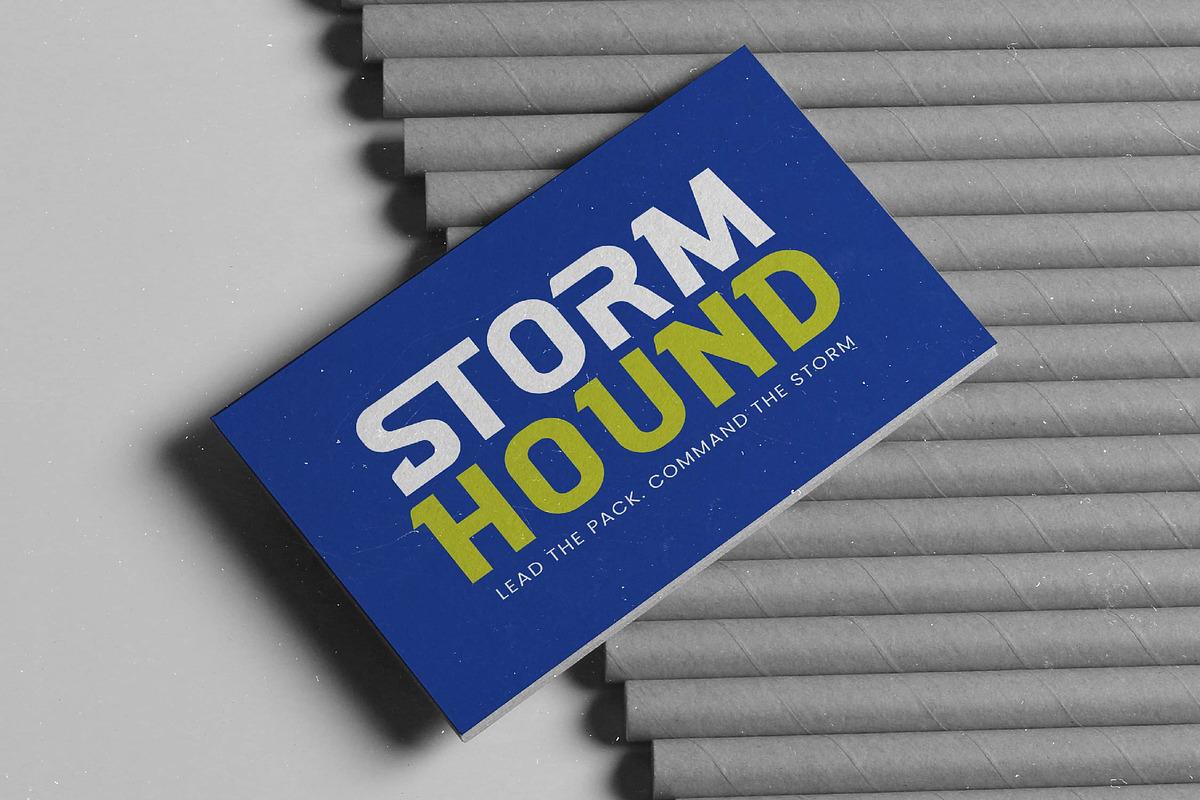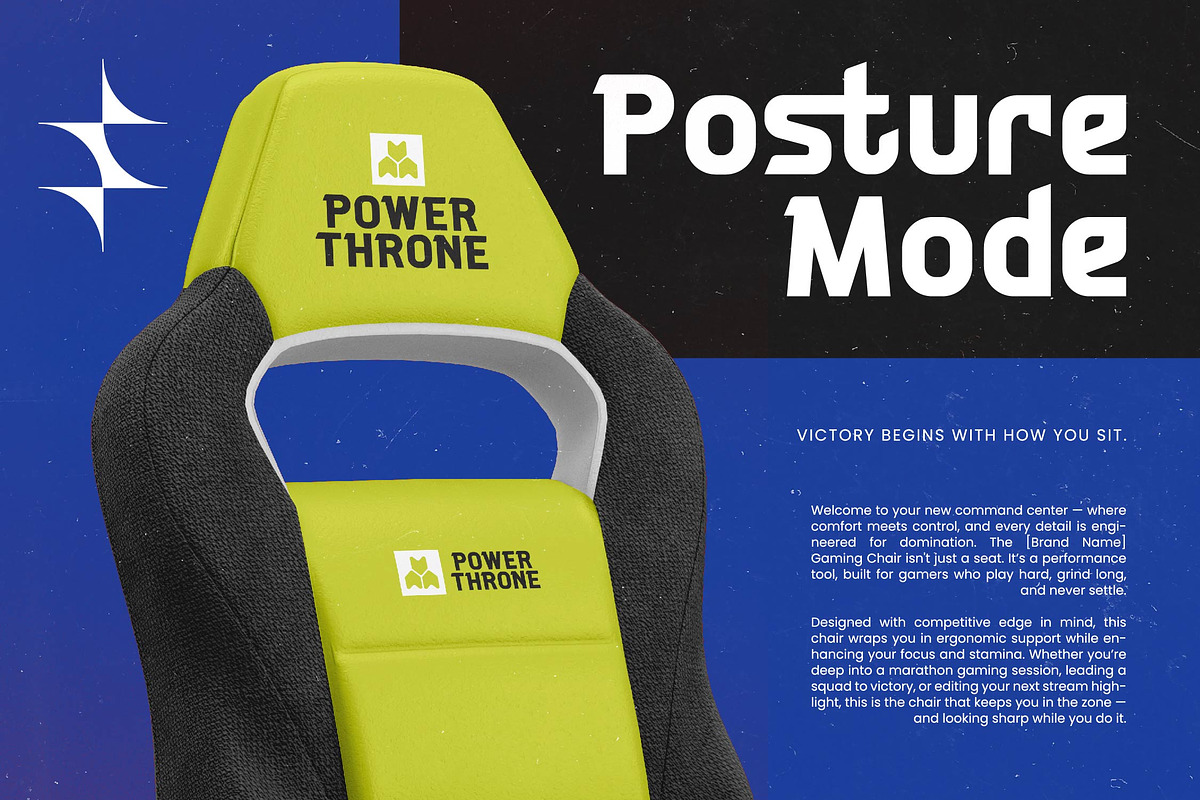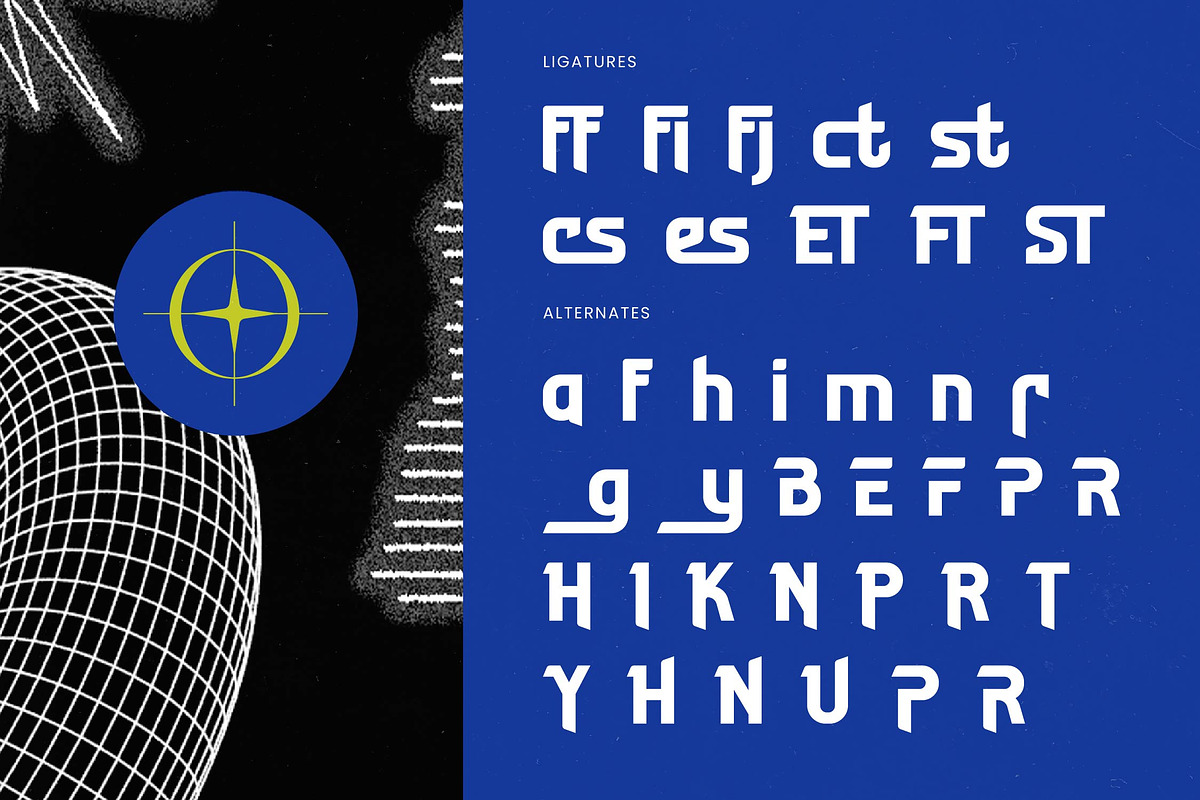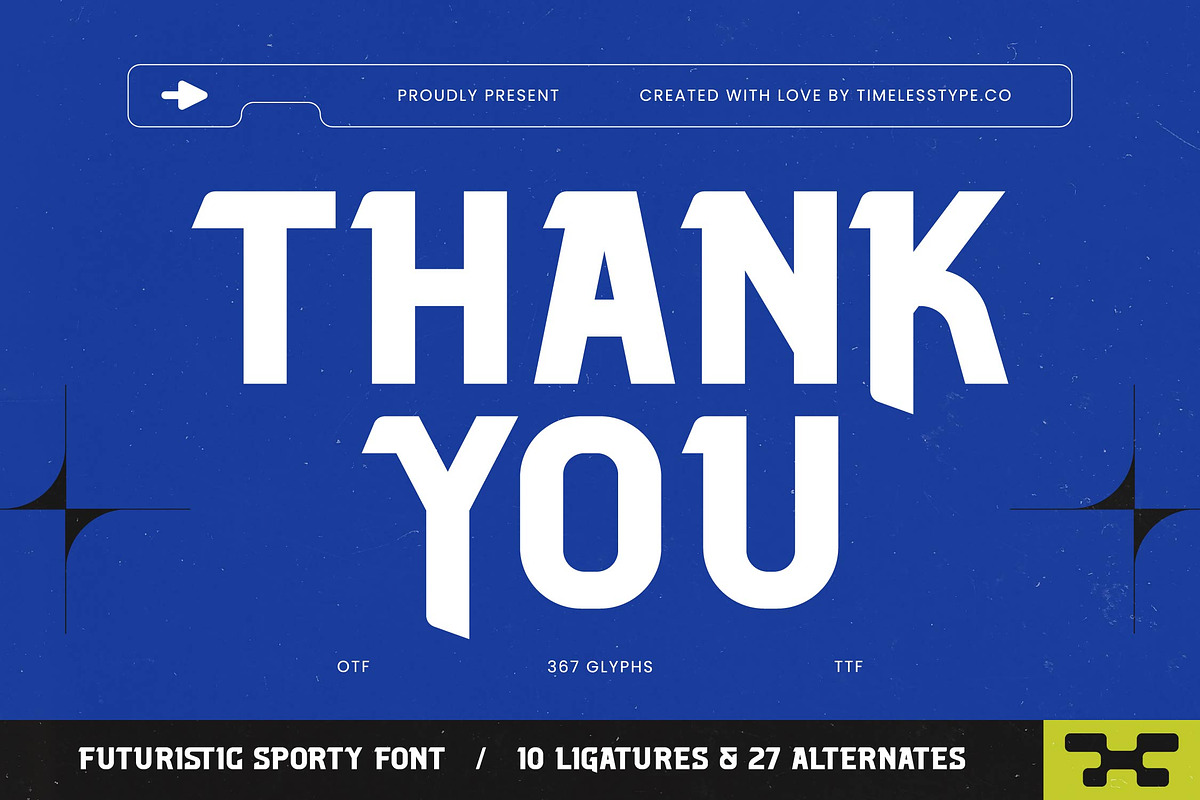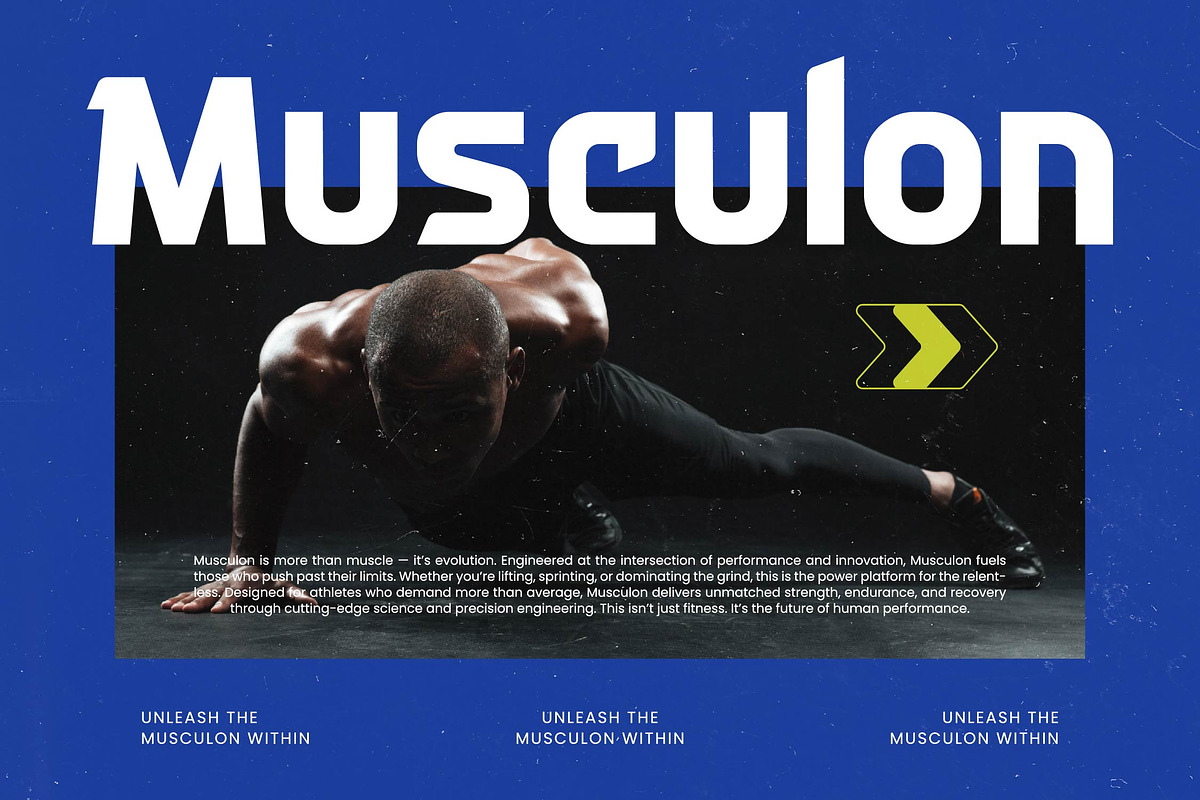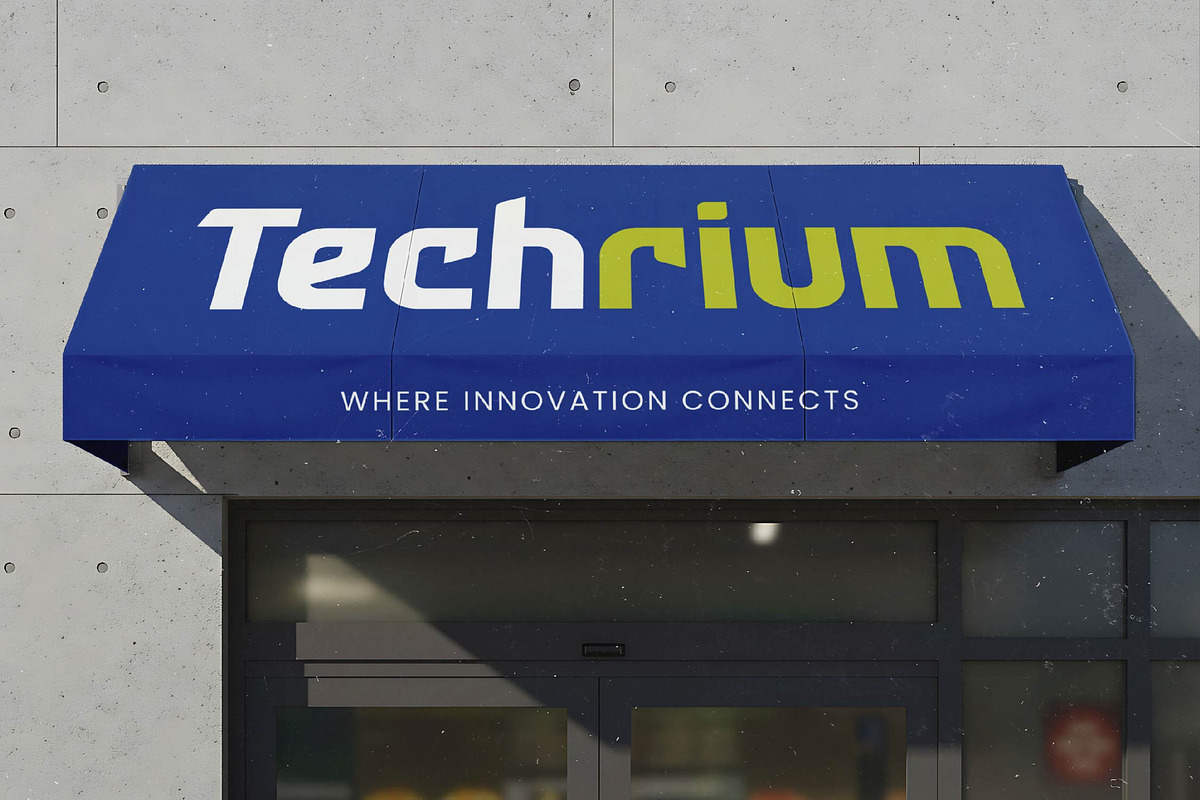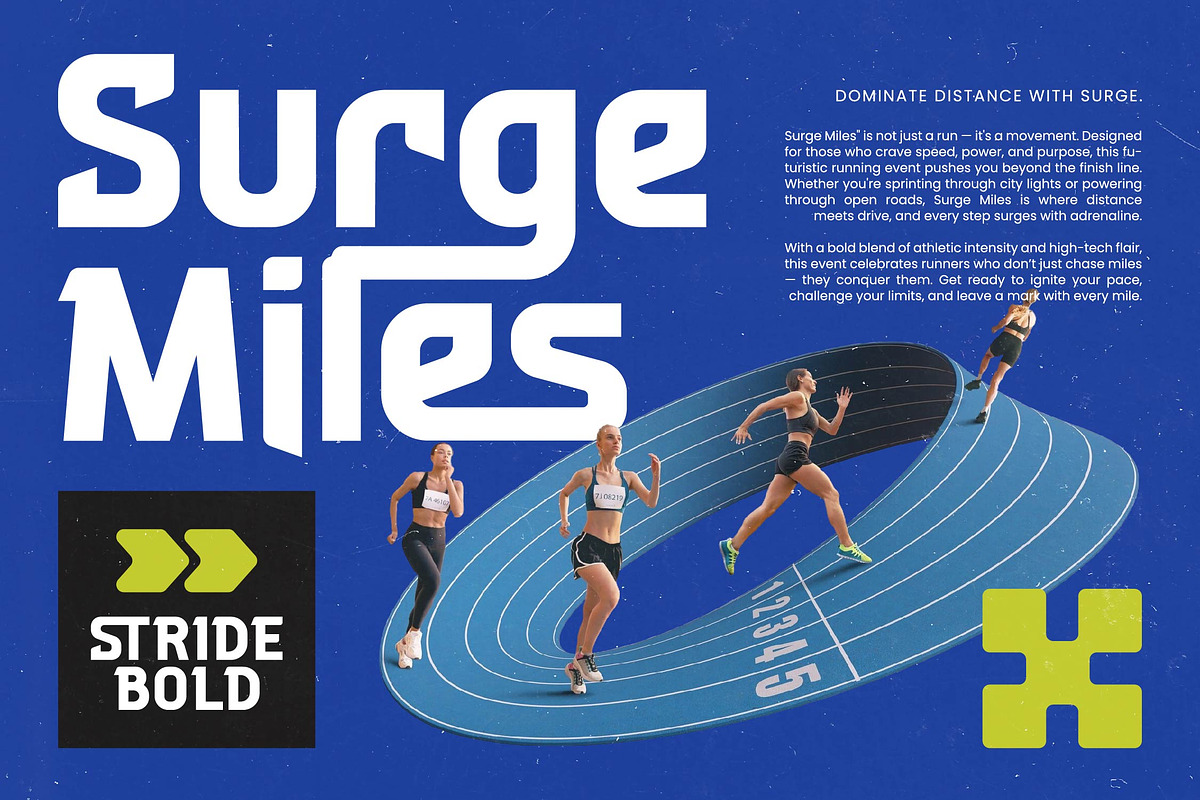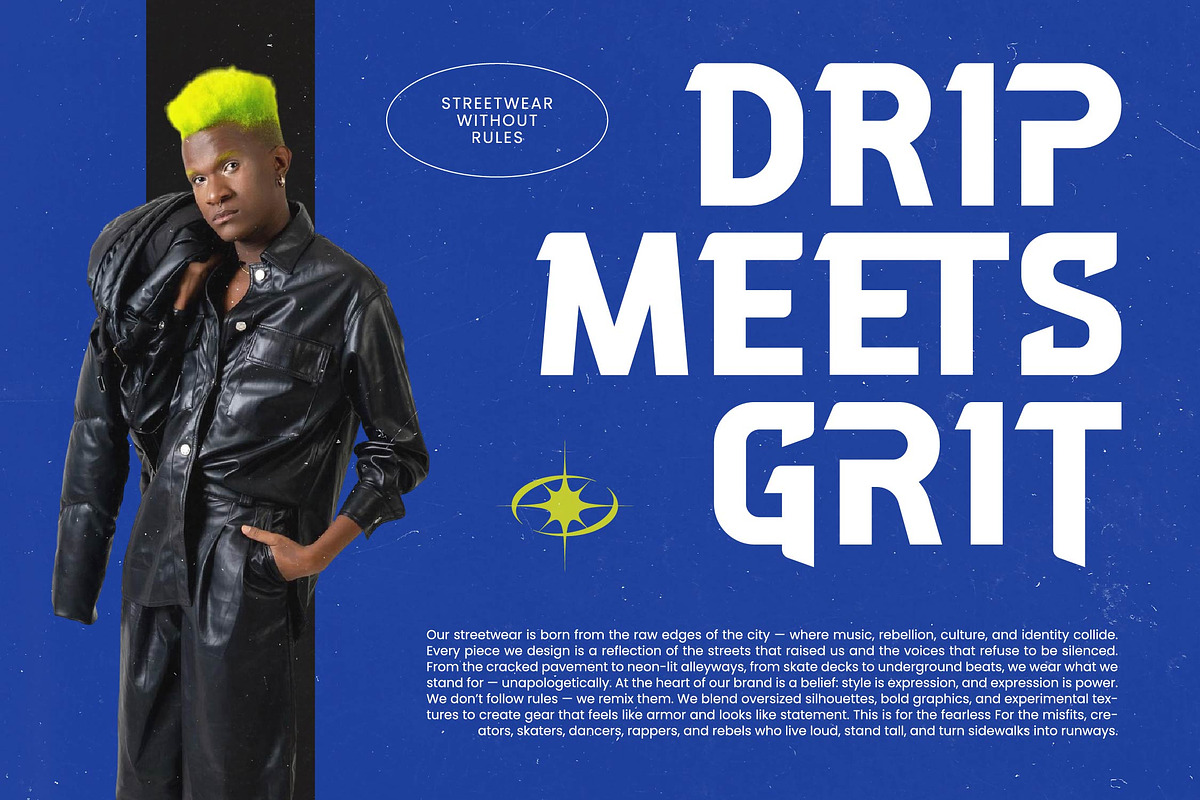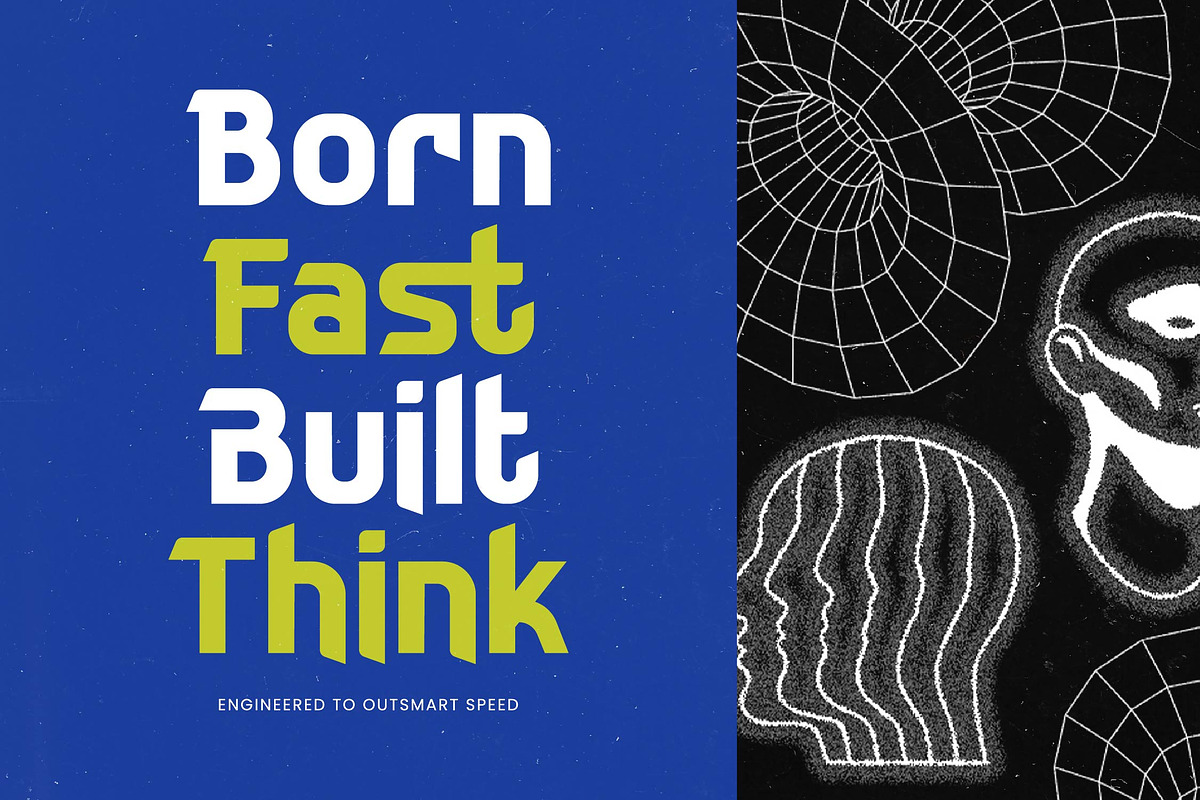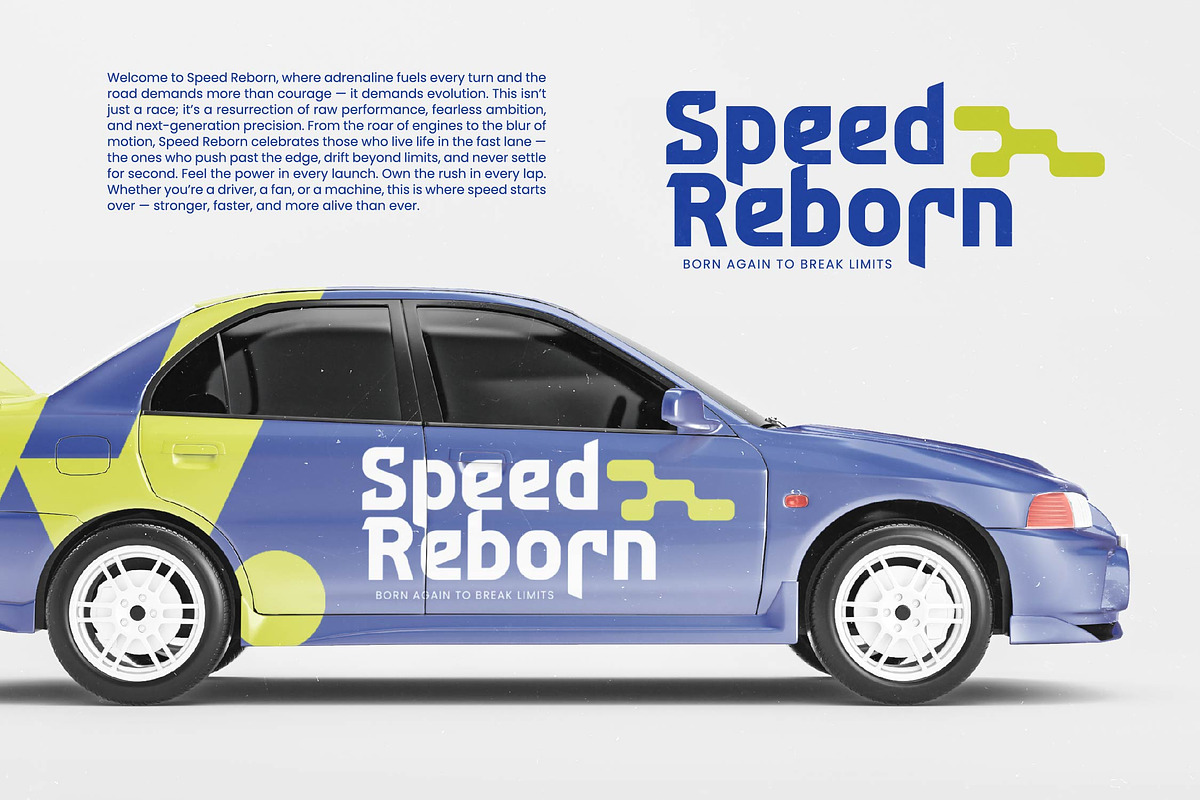
Hector Raxion Futuristic Sport Font
Experience the raw power and kinetic energy of Hector Raxion, a typeface designed for those who command attention in every digital arena. It is the definitive choice for projects that demand a sharp, forward-thinking aesthetic with an edge of sophisticated athleticism and high-octane visual appeal.
Drawing inspiration from the sleek lines of aerospace engineering and the high-speed world of competitive racing, this font captures a sense of perpetual motion. Its architecture is built on a foundation of geometric precision and aggressive, sharp-angled terminals that evoke a world of speed, innovation, and unwavering strength.
This modern serif display brings a unique twist to technical designs, offering a sense of luxury typography within a rigid, sporty frame. The high-contrast serif elements combined with its blocky structure create an undeniable editorial font presence that ensures maximum branding impact across digital and physical media.
Aligning perfectly with the modern serif trend where display faces push the boundaries of shape, this typeface stands out among editorial display fonts. It represents a shift towards character-driven typography that prioritizes distinct visual identities over traditional standard sans-serif conventions for the next generation of designers.
From high-performance logo design to immersive gaming branding, this typeface excels in every high-stakes environment. It provides a striking look for editorial layouts, bold packaging concepts, and even brings a sharp, contemporary edge to avant-garde wedding invitations and high-end fashion lookbooks.
The package is fully loaded with a comprehensive set of ligatures and unique alternates that allow for custom letterform combinations. It also features swashes and full multilingual support including international characters, ensuring your message reaches a global audience without any compromise on style.